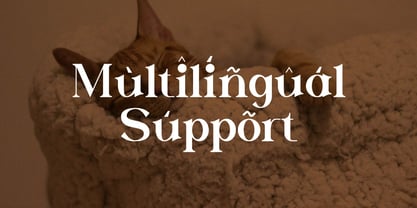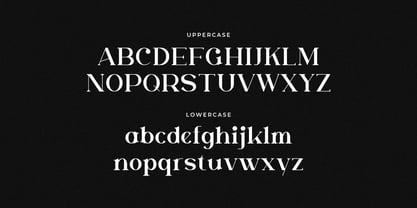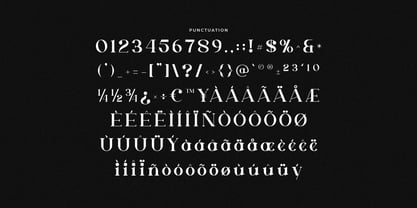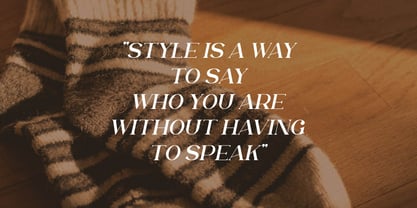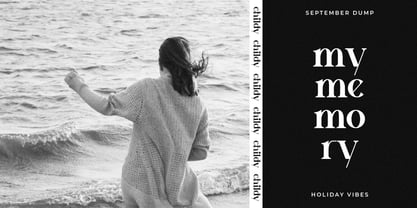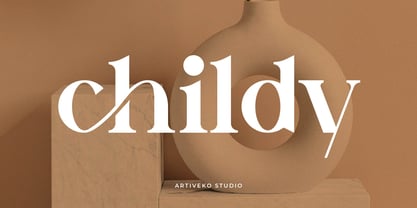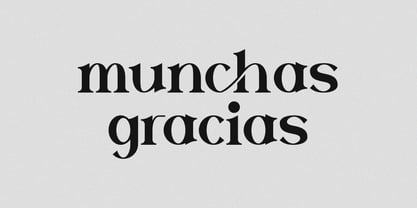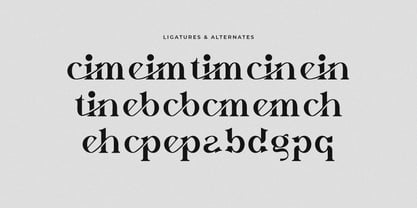
Childy
by Artiveko
The Childy Font Family was designed by Iwan Alwan and published by Artiveko. Childy contains 2 styles and family package options.
Childy is a refined serif font created to bring sophistication and exclusivity into your design projects. With high-contrast strokes, elegant curves, and carefully balanced proportions, Childy is perfect for luxury branding, premium packaging, fashion editorials, invitations, and upscale logo design. Its elegant yet modern structure ensures excellent readability while maintaining a sense of artistry and refinement. Childy shines in projects that require a polished and premium aesthetic — from boutique identities and editorial layouts to digital campaigns and print media. The font includes uppercase and lowercase letters, numerals, punctuation, multilingual support, ligatures, and stylistic alternates — giving designers the creative freedom to customize and elevate their typography. Add sophistication to your visuals with Childy — the luxury serif font that embodies timeless elegance and modern prestige.
Designers: Iwan Alwan
Publisher: Artiveko
Foundry: Artiveko